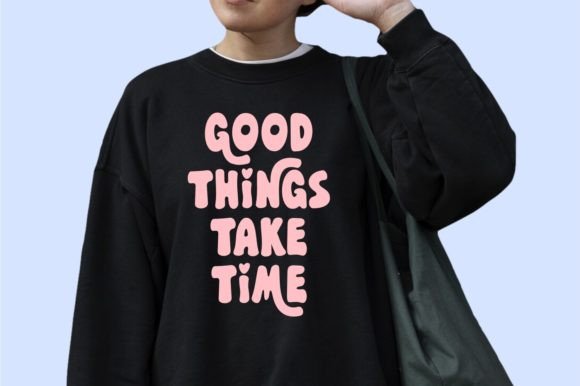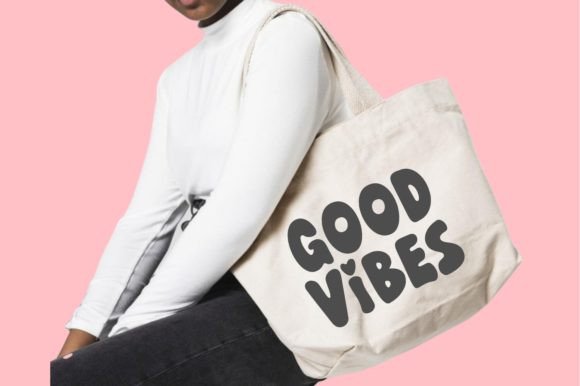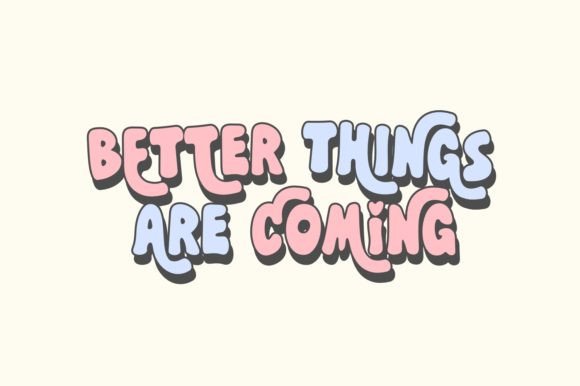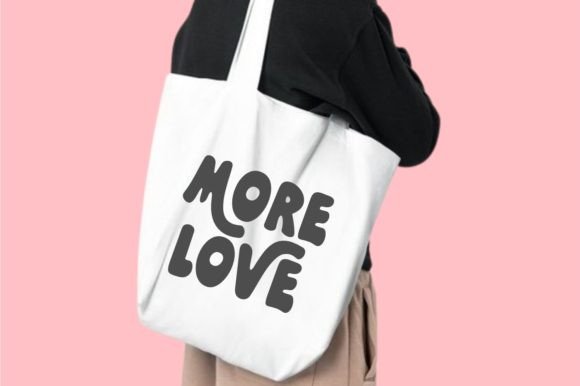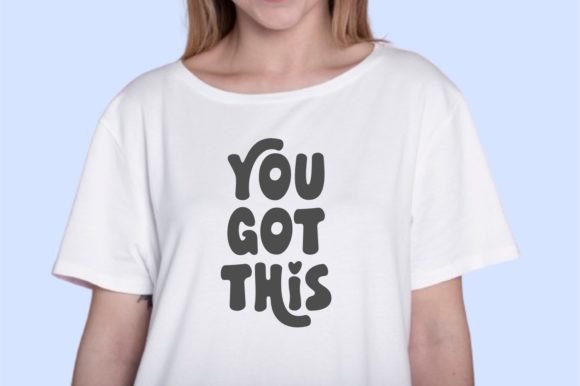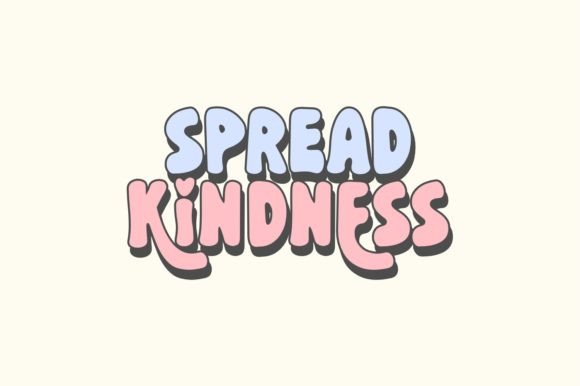
Embracing the Funk of Groovy Squad Font
As designers, we’ve all been there – stuck in a creative rut, searching for that one design element to spark our imagination and transport us to a world of endless possibilities. For many of us, it’s the nostalgia of retro designs that reignites our passion for creating something truly unique. That’s where the Groovy Squad Font comes in – a delightful blend of vintage charm and playful cartoon essence that’s sure to bring a smile to your face.
Whether you’re working on a merchandise design, crafting a poster, or simply looking to add a touch of whimsy to your home decor, the Groovy Squad Font is the perfect design resource to help you bring your creative project to life. With its high-quality design and transparent background, this font is a valuable addition to any designer’s toolkit, and the best part? It’s available for free download, making it accessible to designers of all levels.
- High-quality design resource for creative projects: The Groovy Squad Font is a unique and stylish font that adds a touch of elegance to any design.
- Unique characteristics: The Groovy Squad Font features a distinctive, hand-drawn style that sets it apart from other fonts in its class.
- Perfect for logos, titles, and headings: The font’s bold and eye-catching design makes it ideal for use in logos, titles, and headings, adding a touch of sophistication to any creative project.
I recently stumbled upon the Groovy Squad Font, and I must say, it’s been a game-changer for my creative projects. As a designer, I’m always on the lookout for high-quality design resources that can elevate my work. This font delivers just that.
- What works well: ✨ The Groovy Squad Font is incredibly versatile, making it perfect for a wide range of creative projects. Its funky, retro vibe is perfect for music festivals, travel blogs, and even food trucks.
However, I did encounter a few limitations. ⚠️ The font is not suitable for formal or professional projects, as its funky vibe might not be taken seriously. Additionally, the font might not be as readable on smaller screens or at smaller font sizes.
Overall, I’m really impressed with the Groovy Squad Font. It’s a fantastic addition to any designer’s toolkit, and I would highly recommend it for creative projects that require a fun and playful touch.
The Groovy Squad Font is a versatile design resource that can be used in a wide range of creative projects, including social media graphics, presentations, documents, and more. Its high-quality design and transparent background make it an ideal choice for any project that requires a professional and eye-catching look.